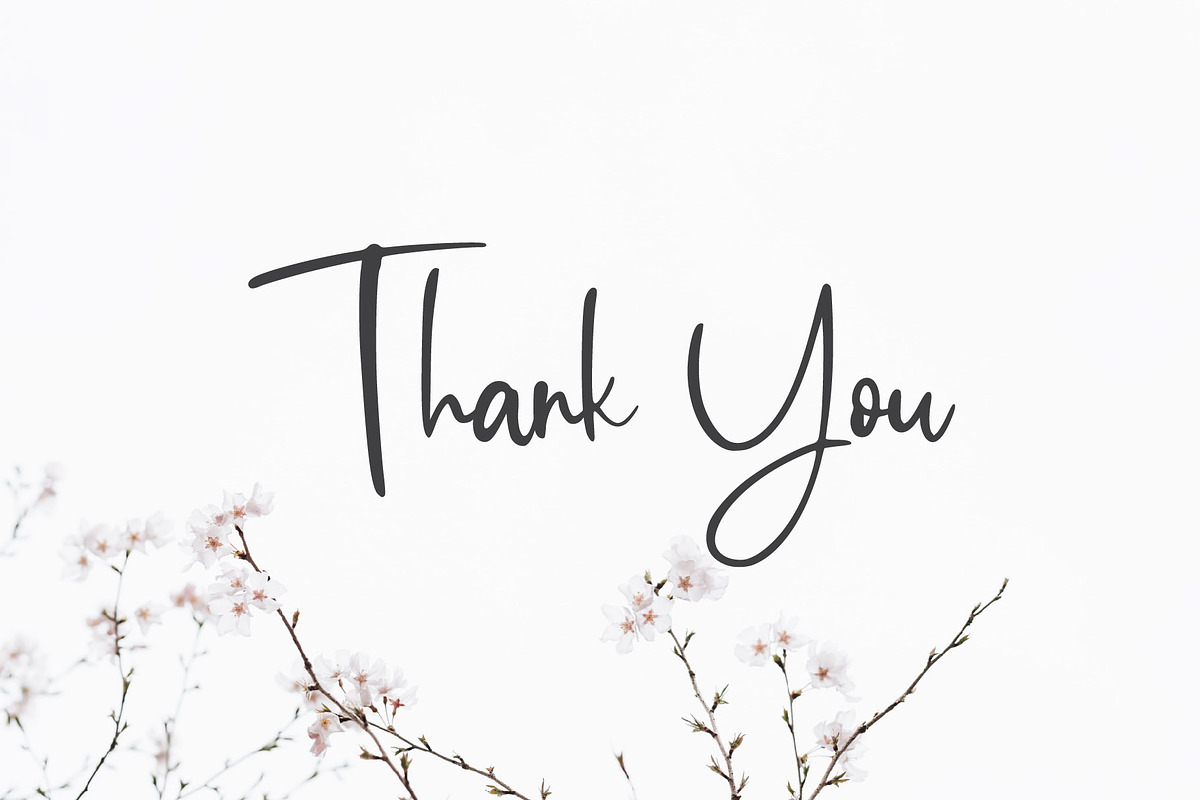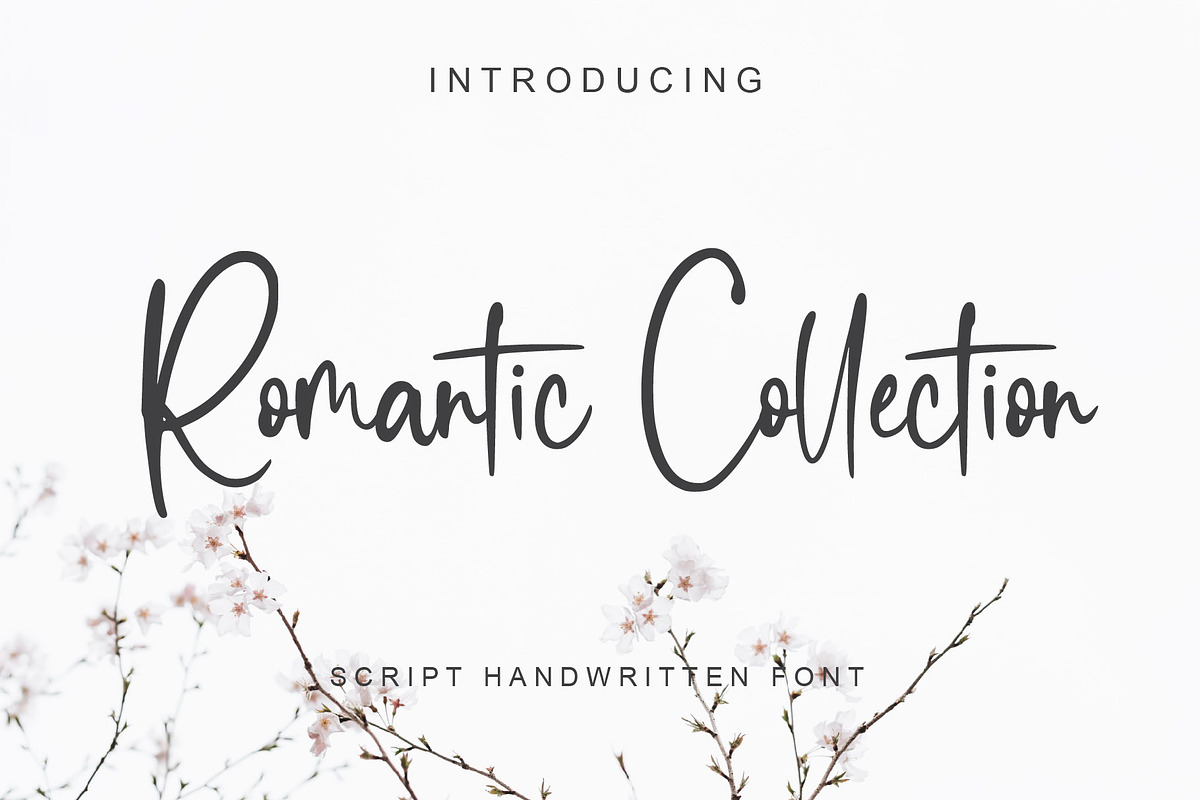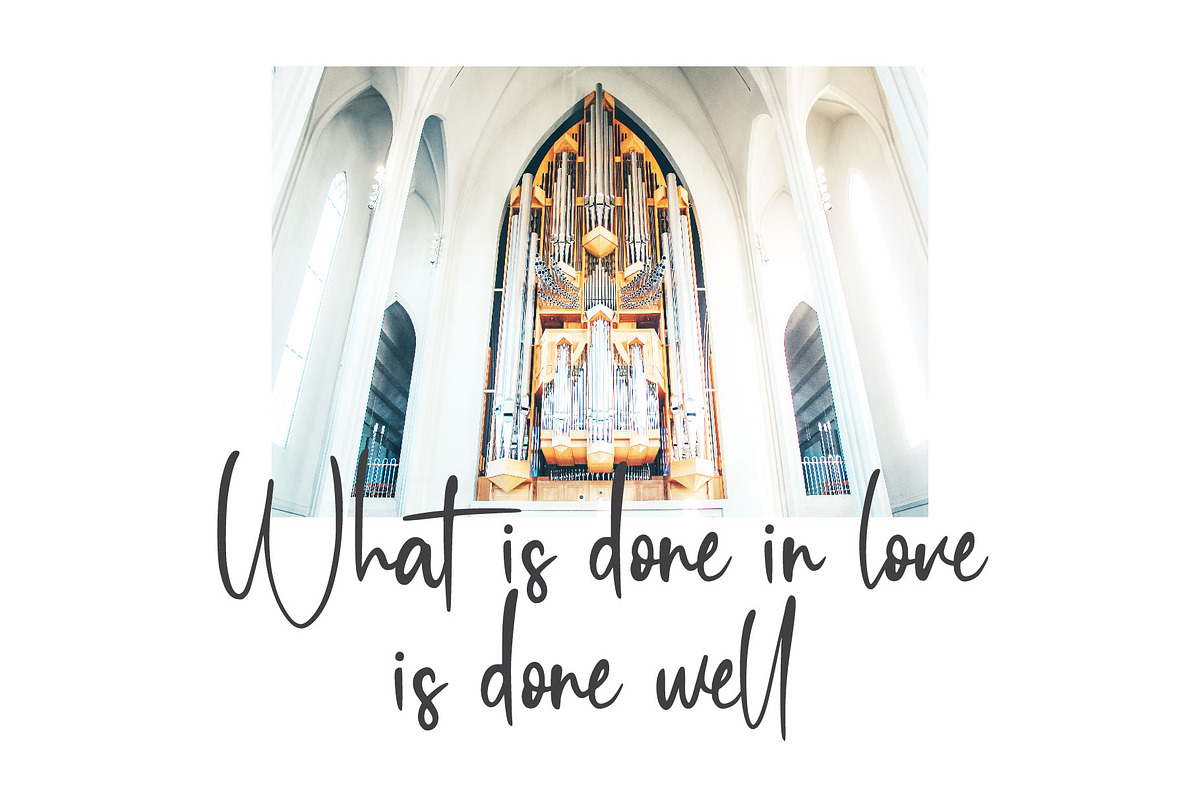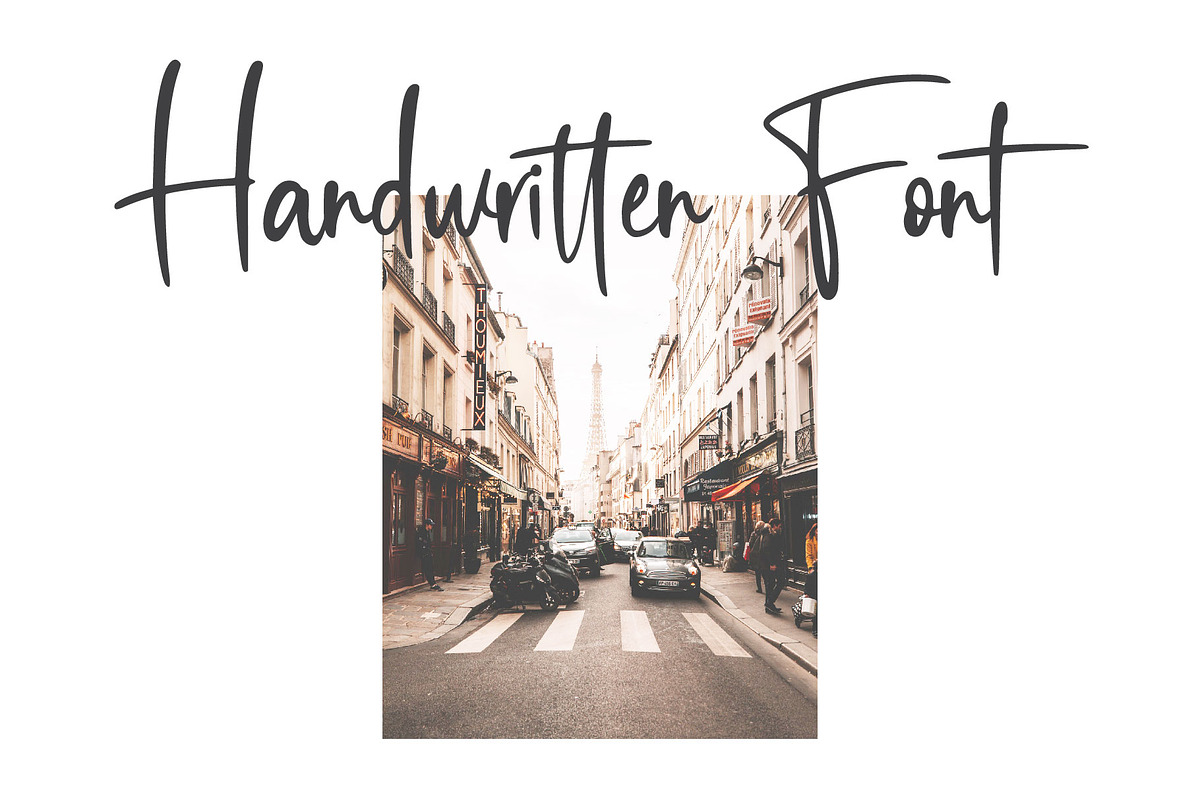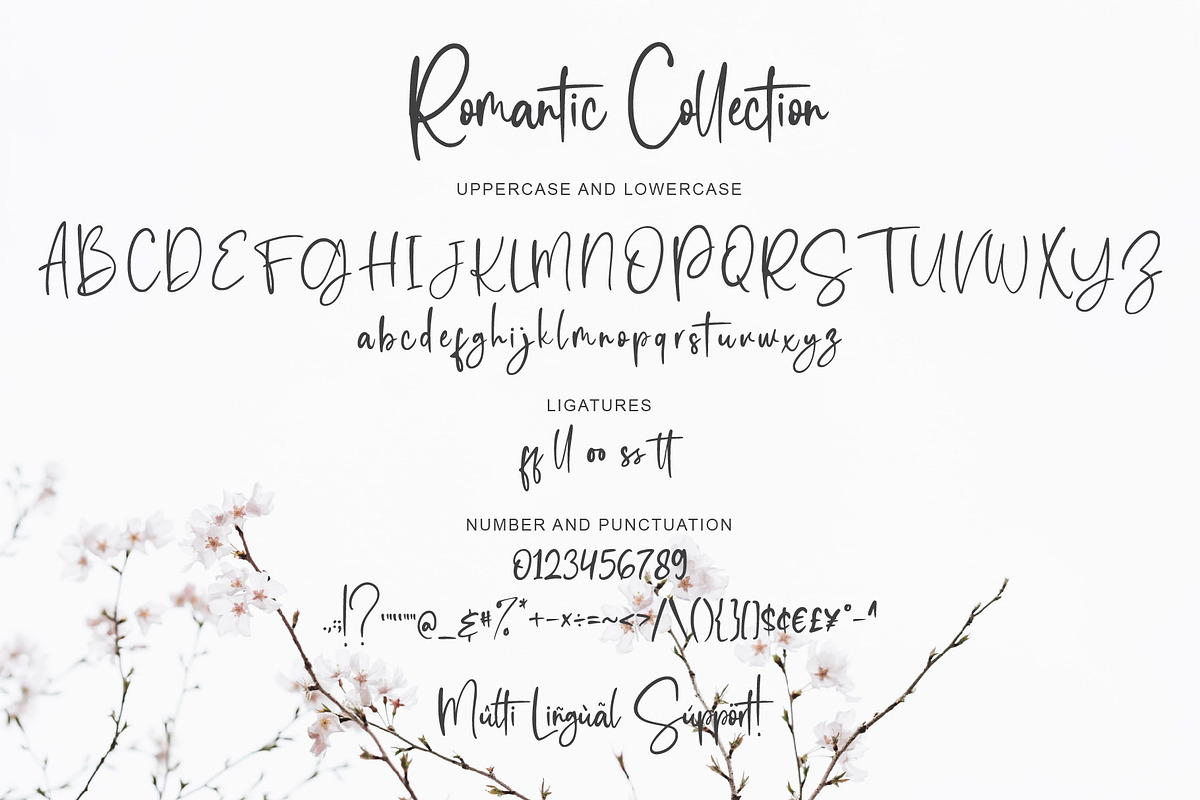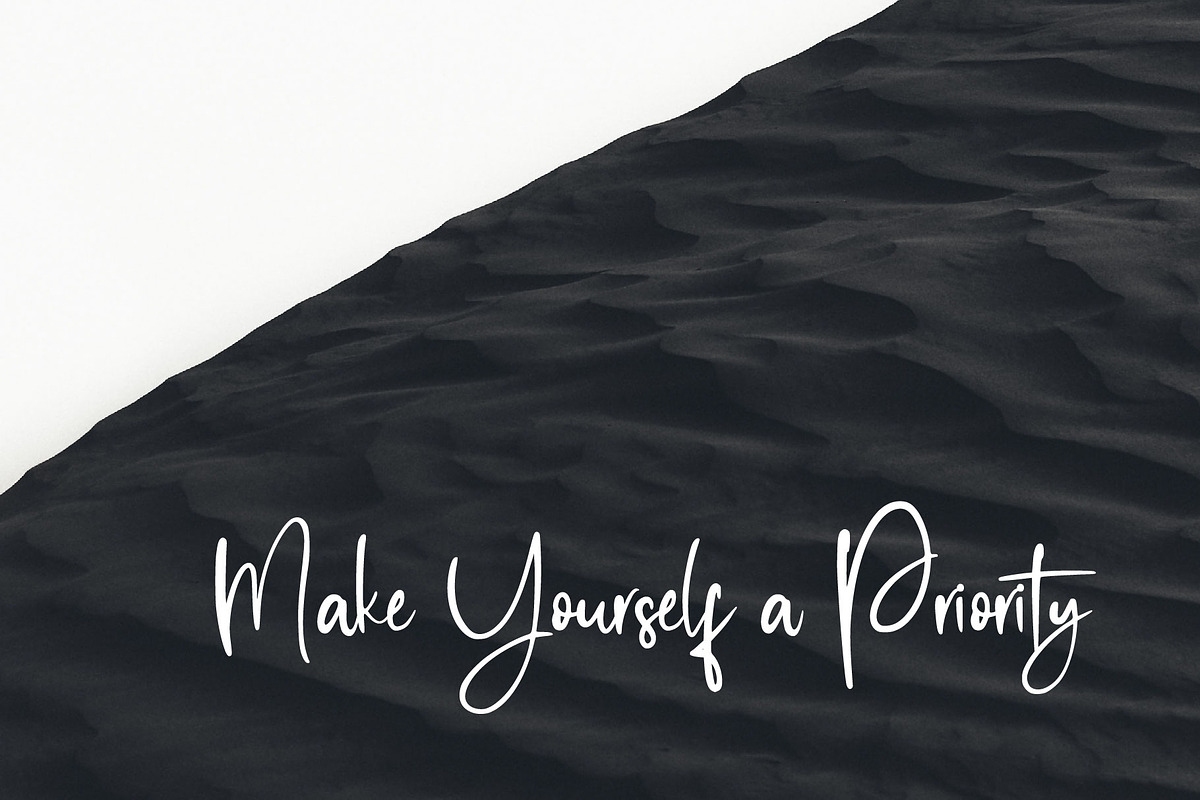
Romantic Collection
Hello everyone Introducing our new font called Romantic Collection handwritten font, Sensation comes with uppercase letters, lowercase letters, multilingual support, ligatures, numbers and punctuation